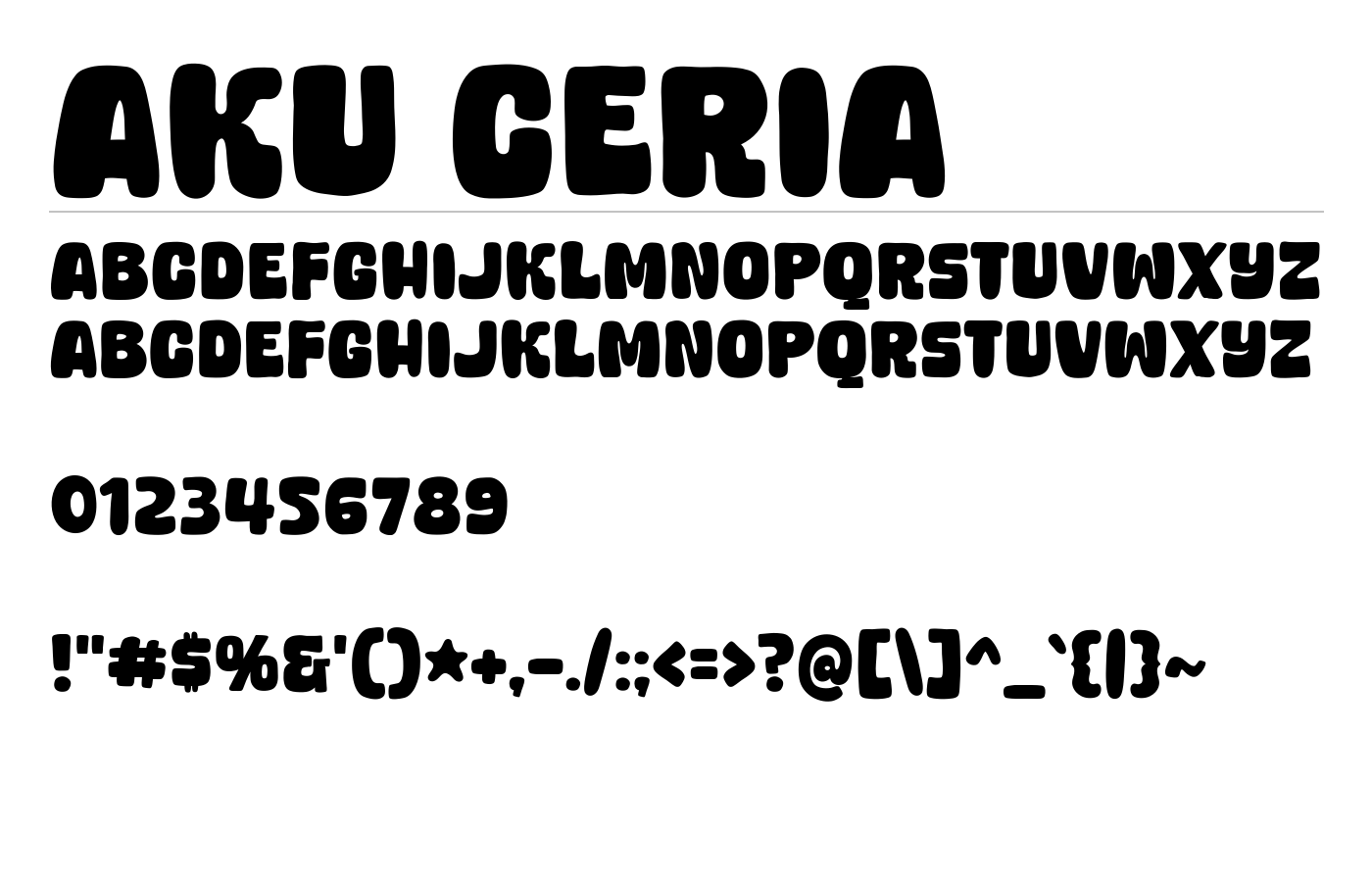
Aku Ceria is a bold, rounded sans-serif font with a playful and friendly personality. Its thick, soft shapes and uniform stroke weight create a warm and approachable feel, making it perfect for fun, casual designs like children's books, posters, and branding that aims to convey joy and charm. This font works well in headlines and display uses where a cheerful, informal tone is desired.
Aku Ceria Font
About Aku Ceria Font
| Font family | Aku Ceria Font |